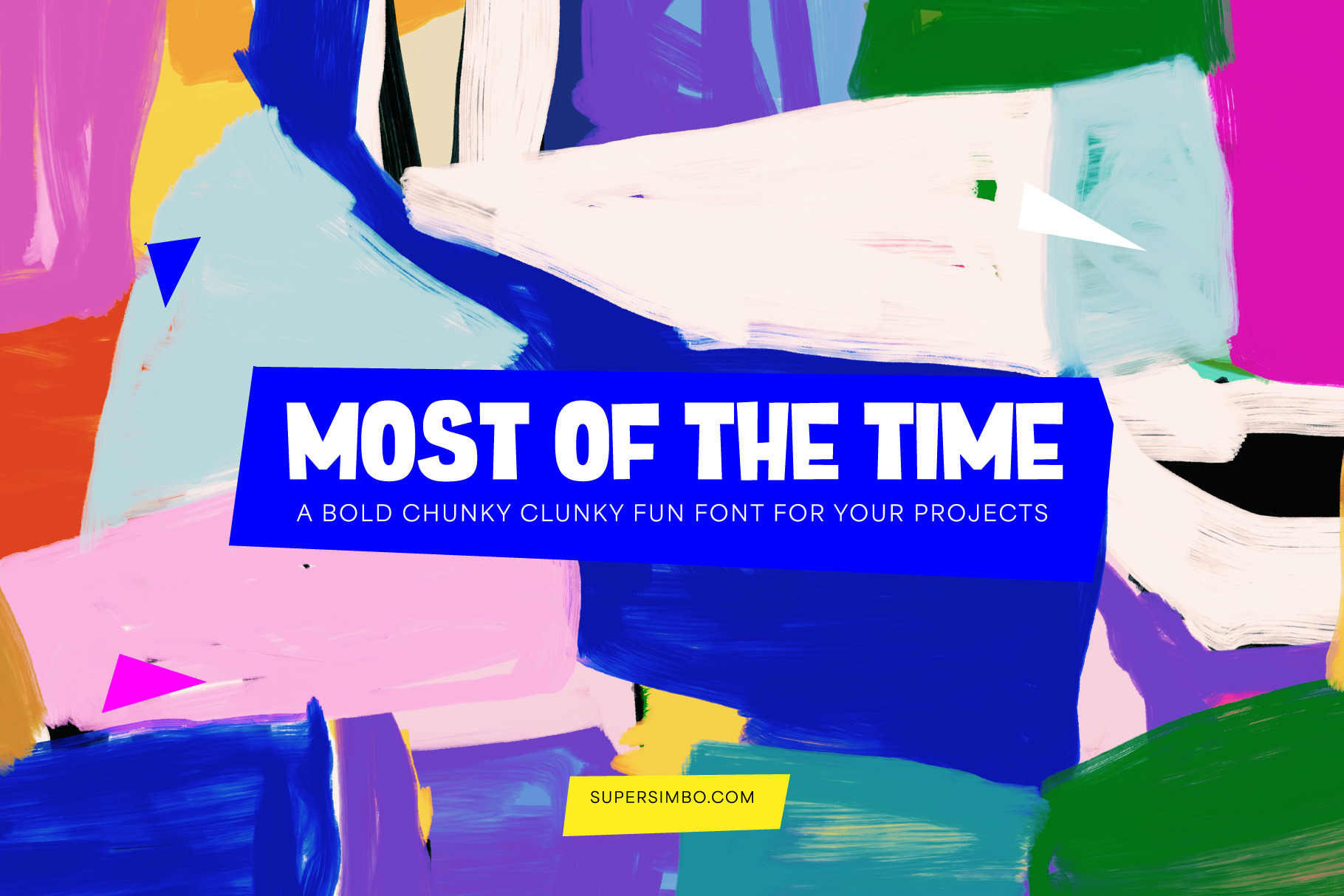
Most of the Time | Hand Drawn Font
Meet "Most of the Time" — the chunky, confident display font that refuses to play it safe. Born from bold brushstrokes and unapologetic energy, this hand-drawn heavyweight brings instant personality to posters, packaging, album covers, and brand identities that need to SHOUT (in the coolest way possible). ✨ What makes it special:
Thick, chunky letterforms with authentic hand-painted texture Perfect for headlines that demand attention Includes uppercase, numbers, and punctuation Works beautifully at large sizes where details shine Pairs perfectly with cleaner sans-serifs for contrast
Ideal for: Music branding, streetwear labels, gallery exhibitions, editorial headlines, rebellious brands, festival posters, and any project that needs to make a statement without saying too much. Sometimes you need a font that's bold, chunky, and effortlessly cool. Most of the time, actually. 😉